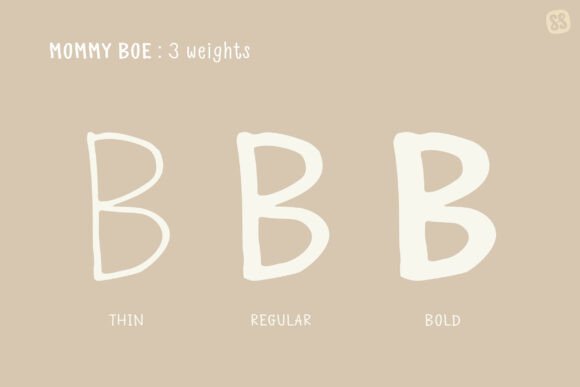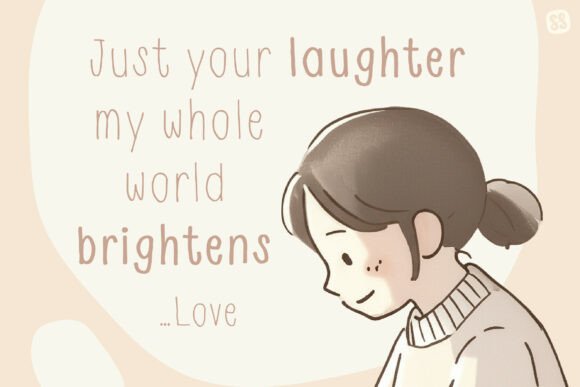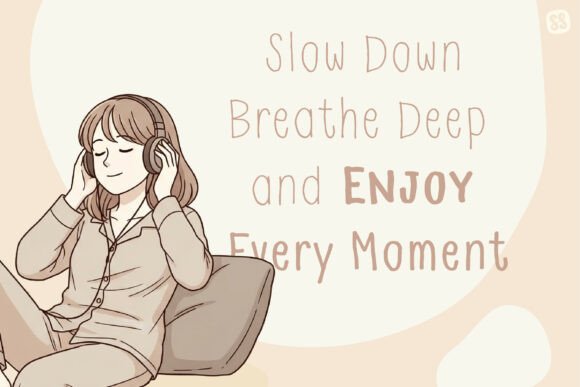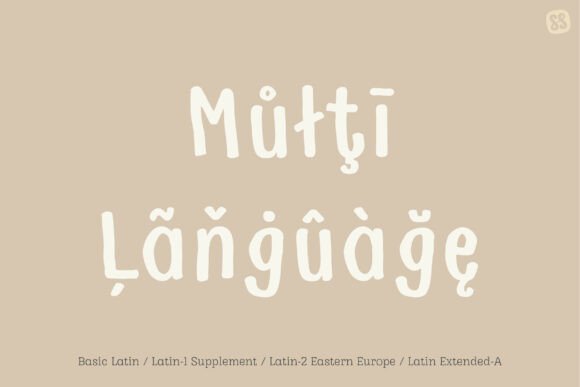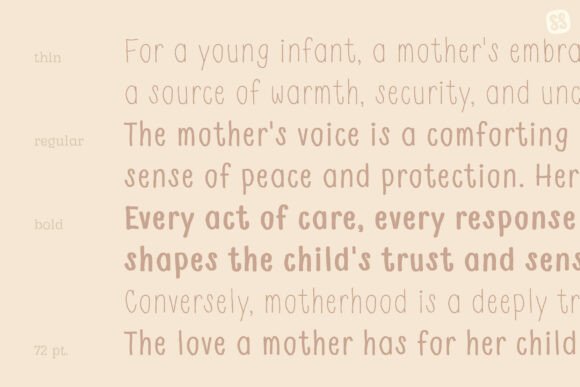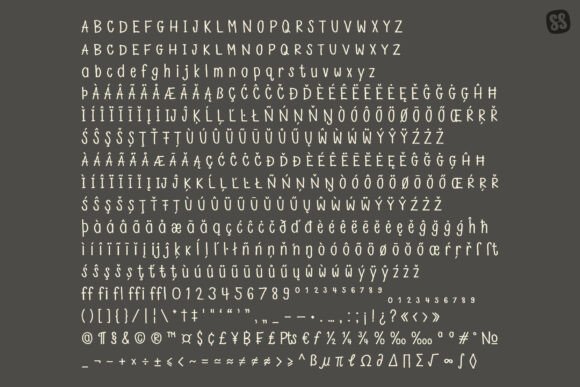
Introduction to Mommy Boe Font Font
Fonts play a crucial role in design, and the Mommy Boe Font font is a typeface that brings both character and versatility to any project. Whether you’re working on a branding project, a website, or a print design, the Mommy Boe Font font offers a unique style that can elevate your work.
Revel in the endearing charm of MOMMY BOE, an authentic handwritten font that recreates the pure essence of distinctive pencil strokes.
Unfolding an intimate and warm allure, this font thrives exceptionally well in designs seeking a friendly touch Suited for childrenβs media, it beautifully embraces its childlike charm while remaining visually compelling.
Key Features of Mommy Boe Font Font
Why Choose Mommy Boe Font Font?
The Mommy Boe Font font is more than just a typeface β it’s a design tool that helps you communicate your message with style and clarity. Its unique character set and versatile design make it suitable for a wide range of applications, from elegant invitations to bold headlines.
With its carefully crafted letterforms and balanced proportions, the Mommy Boe Font font ensures readability and visual appeal across all mediums.
What makes Mommy Boe Font font special?
The Mommy Boe Font font stands out with its unique design, exceptional readability, and versatility across various design applications.